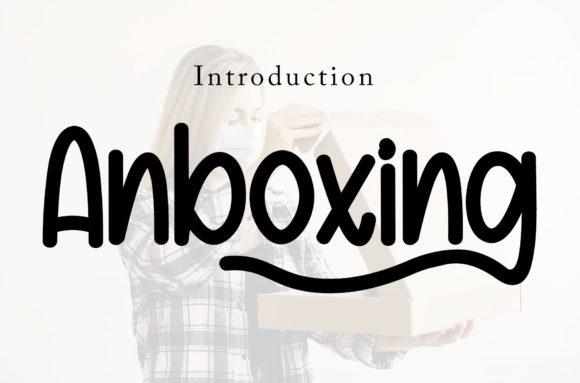
Unleash the charm of handwritten notes with Anboxing Font, a captivating script font family, meticulously crafted for your Instagram posts. Experience the joy of expressing your individuality as your words dance across the screen with a touch of elegance and flair. Anboxing's fluid strokes and delicate curves add a personal touch to your digital creations, making your posts stand out from the crowd.
Dive into a world of creativity with Anboxing, where your imagination takes center stage. Create eye-catching captions that draw attention and entice your audience to engage with your content. Let your words flow effortlessly, conveying messages of love, friendship, inspiration, or simply the beauty of everyday moments. Whether you're a passionate blogger, a creative entrepreneur, or an aspiring influencer, Anboxing will elevate your Instagram presence to new heights.
With Anboxing, you'll discover endless possibilities to transform your Instagram feed into a visual masterpiece. Share captivating quotes that resonate with your followers, craft heartfelt messages that touch their hearts, or announce new products and services with a touch of handwritten charm. The versatility of Anboxing allows you to adapt it seamlessly to your unique style, matching the aesthetics of your brand or personal preferences.
Unlock the true essence of your brand with Anboxing, a font that embodies authenticity and uniqueness. Step into a world where your Instagram posts become a reflection of your passion, creativity, and individuality. Say goodbye to bland and monotonous captions and embrace the magic of handwritten elegance.